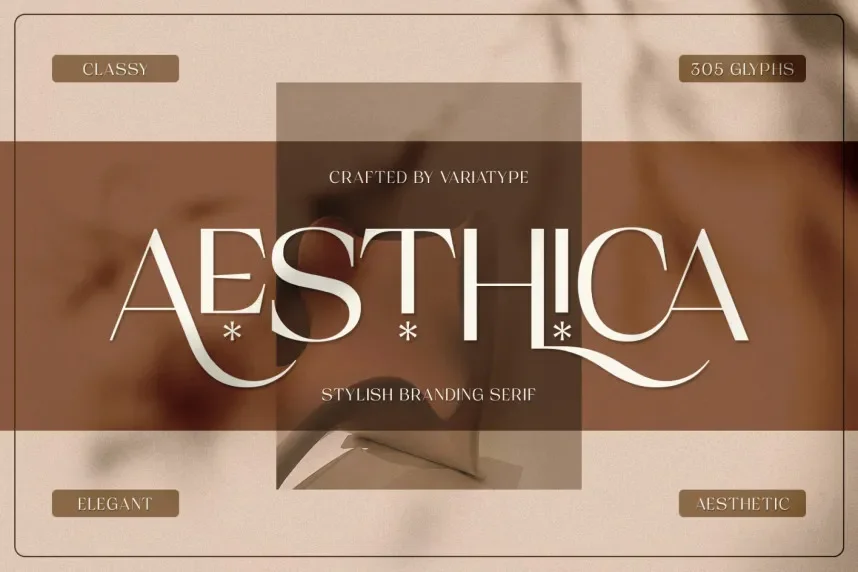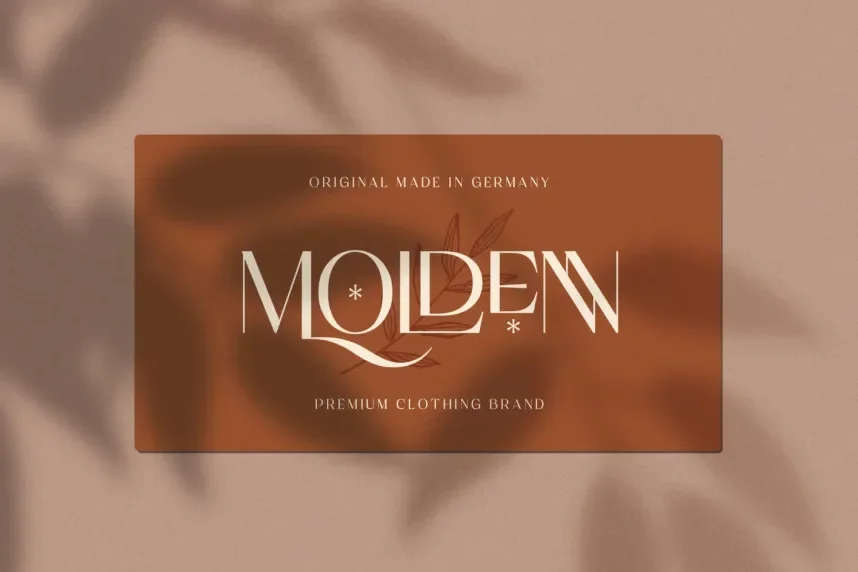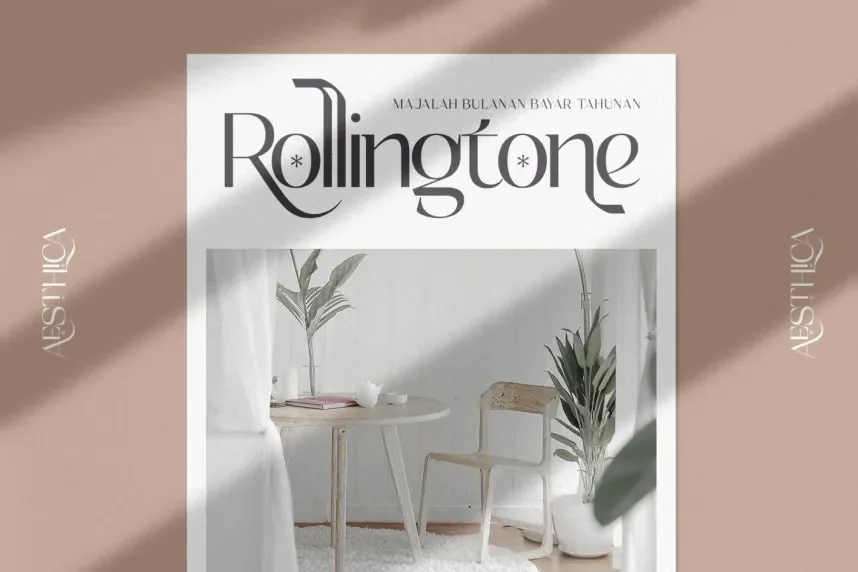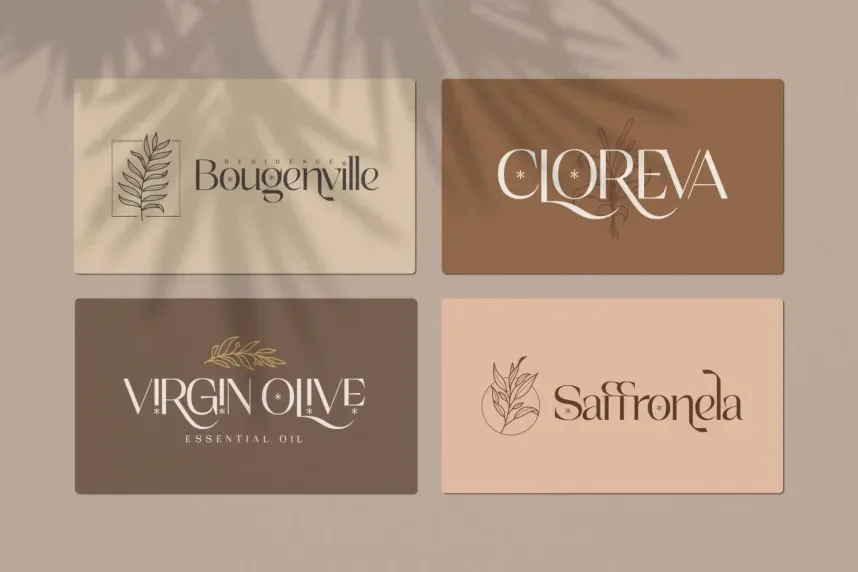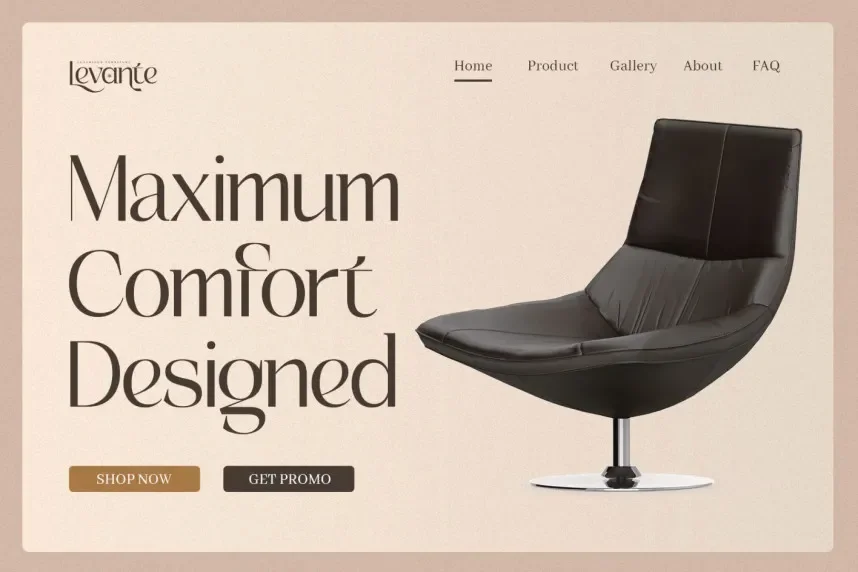
Aesthica Font addresses brand consistency challenges when mixing decorative typography with clean layouts. Designers often need a display font that feels refined without overpowering surrounding elements.
Aesthica is a modern display serif font with smooth curves, balanced proportions, and controlled stroke contrast. The serif details remain subtle, improving readability while adding visual structure. The font works best at medium to large sizes.